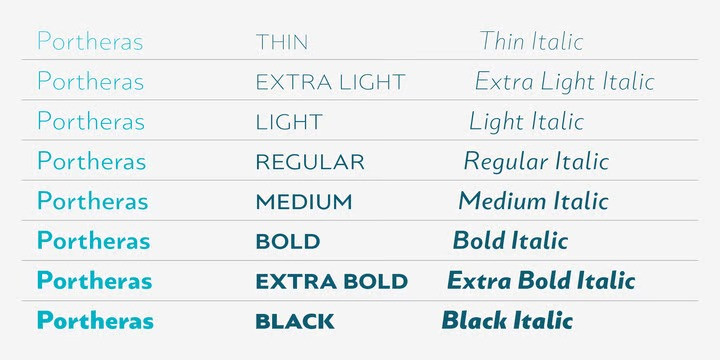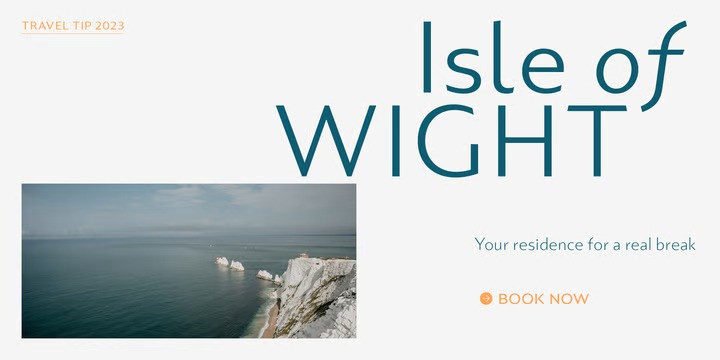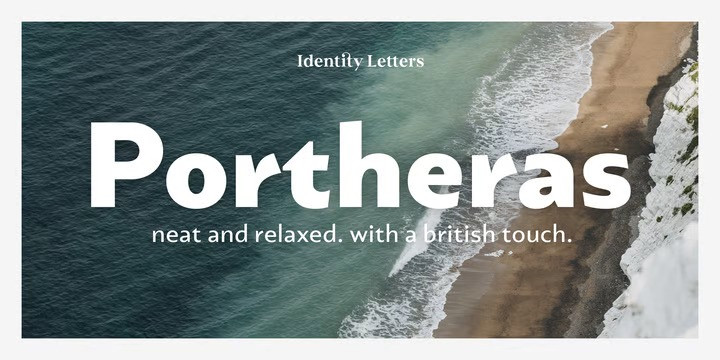
How outstanding! Portheras Sans Serif  Font Family
What does “smart casual” look like as a font? Try Portheras: a fairly wide, contemporary humanist sans with a laid-back attitude. Inspired by the fine Cornish beach of Portheras Cove, this typeface pays homage to British design tradition while incorporating an informal idiom. At ease both in flip-flops and silk blouses, in Bermudas and knit ties, Portheras sports a low x-height and comes with italics between “oblique“ and “true italic”. Despite its approachable look, the font family is equipped for heavy duty—you’ll get 16 styles with 780 glyphs each and OT features such as small caps, numerous figure sets (with old-style figures at mid-cap height), a bunch of arrows, three stylistic sets, and more. Portheras is as classy as relaxed gets.